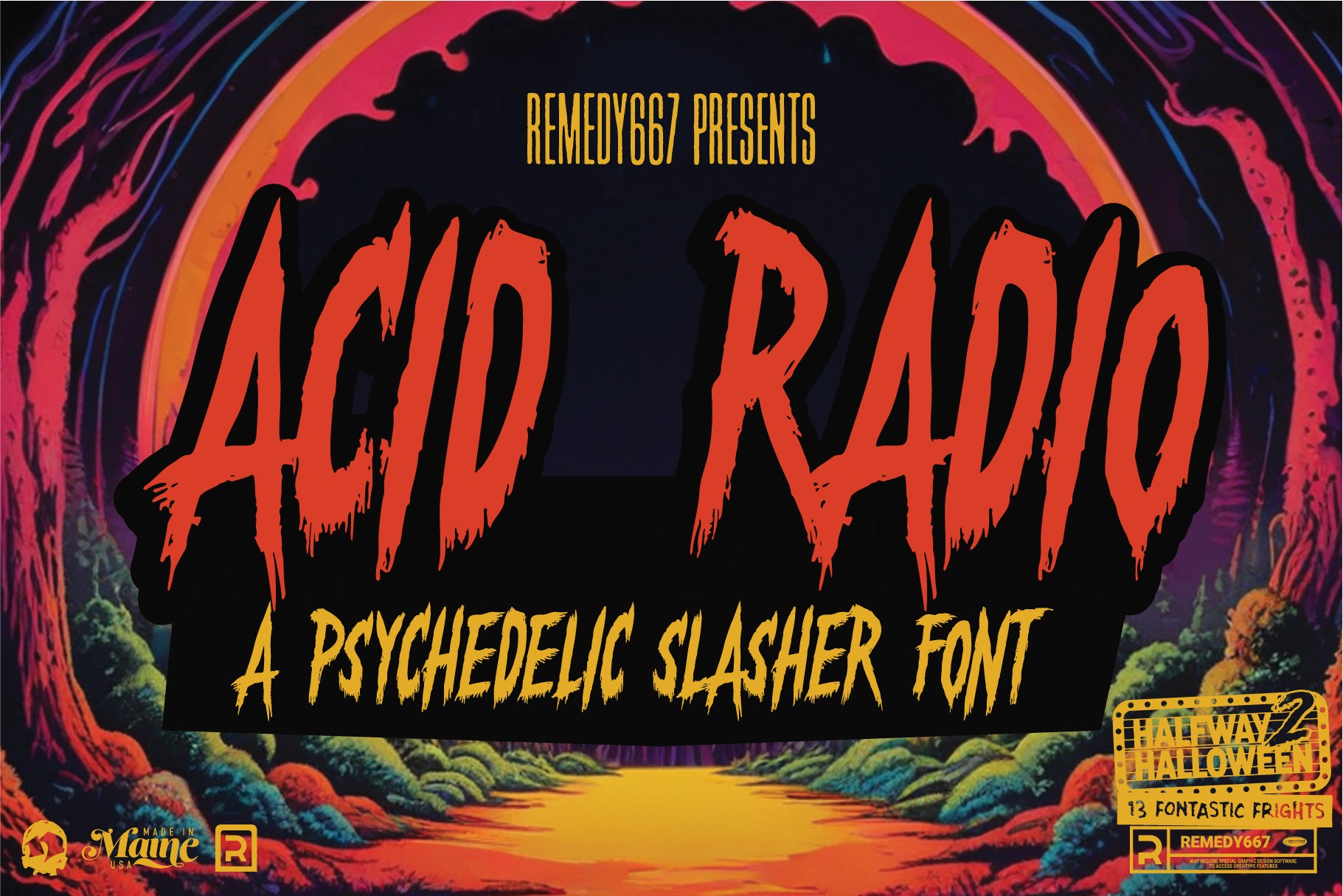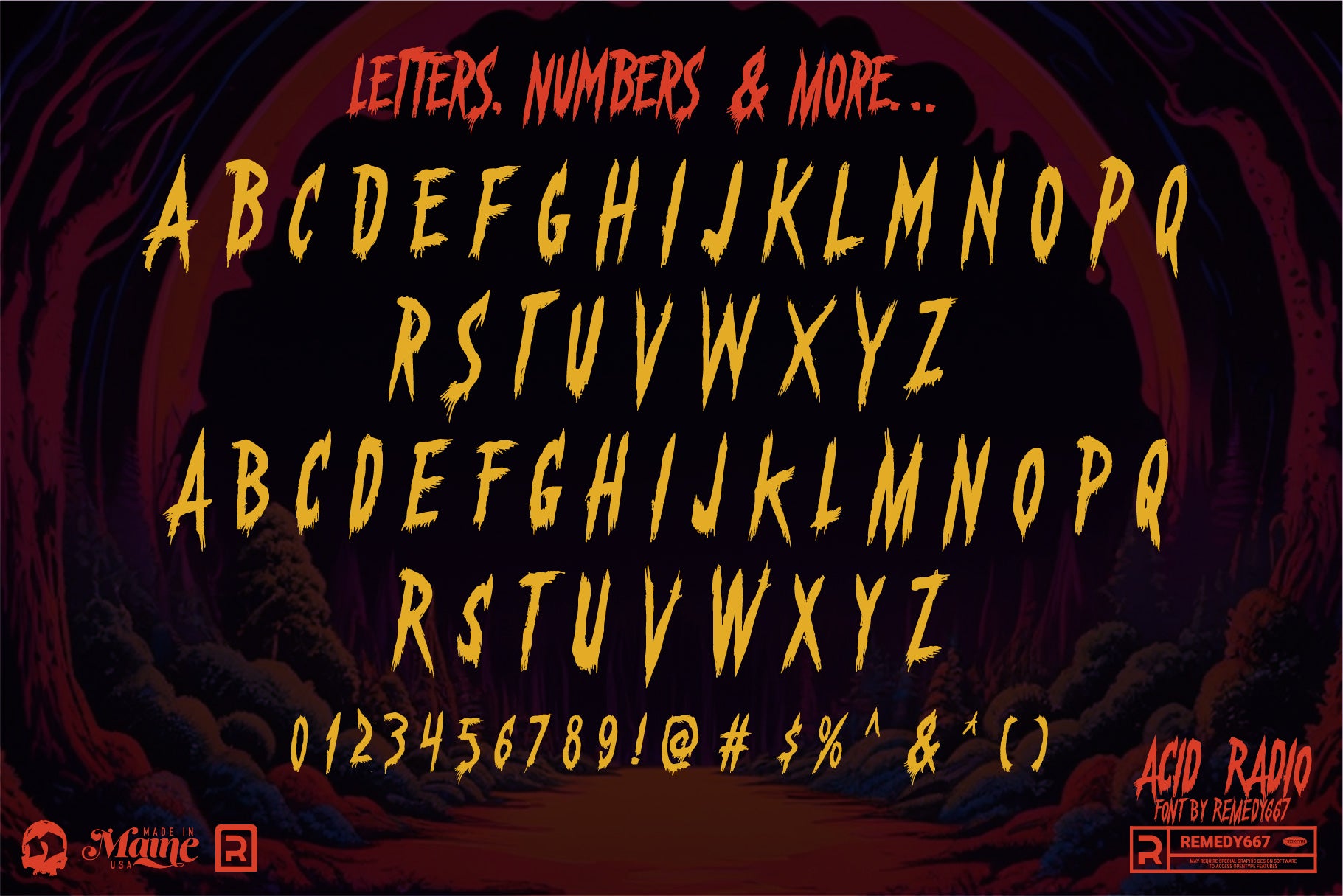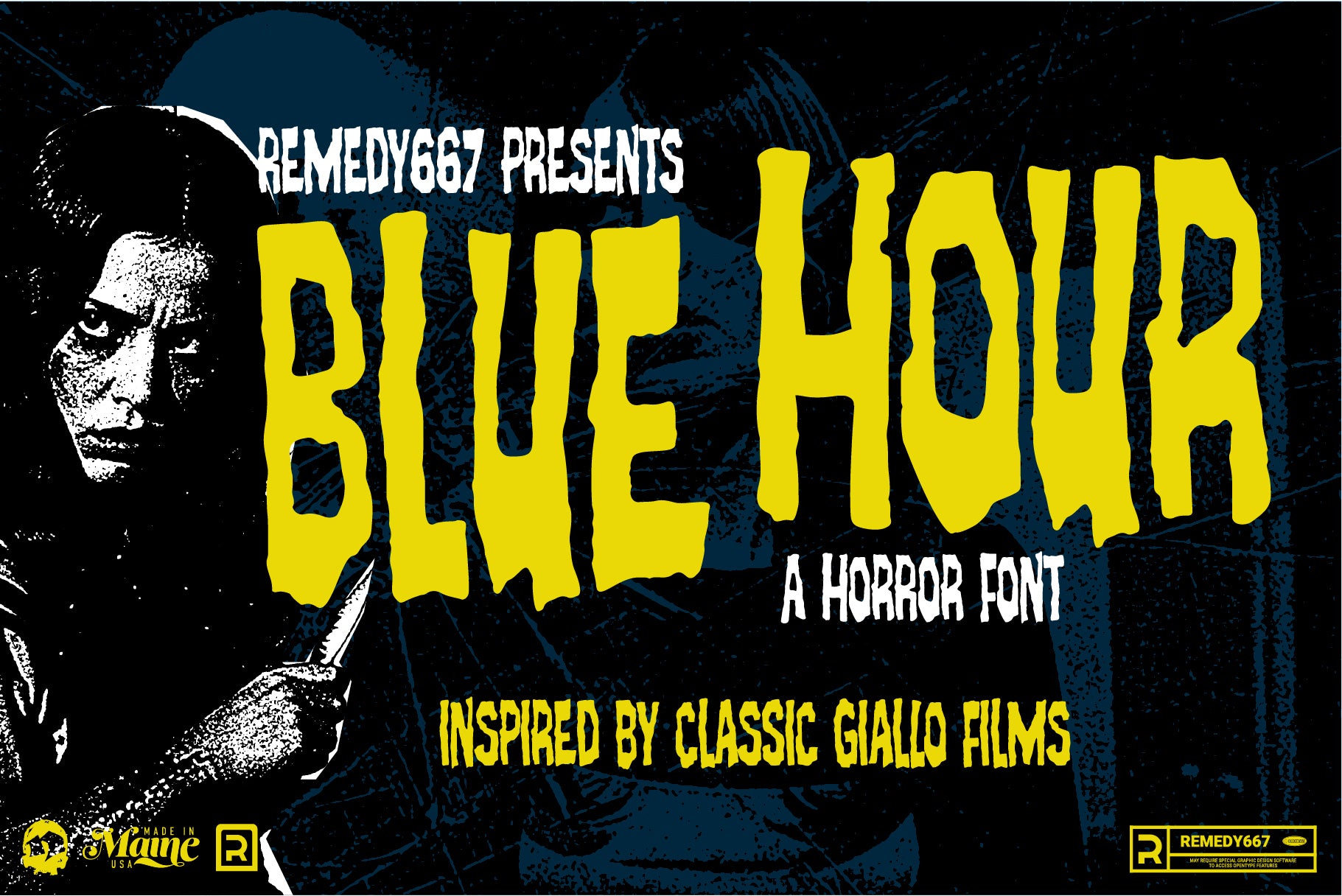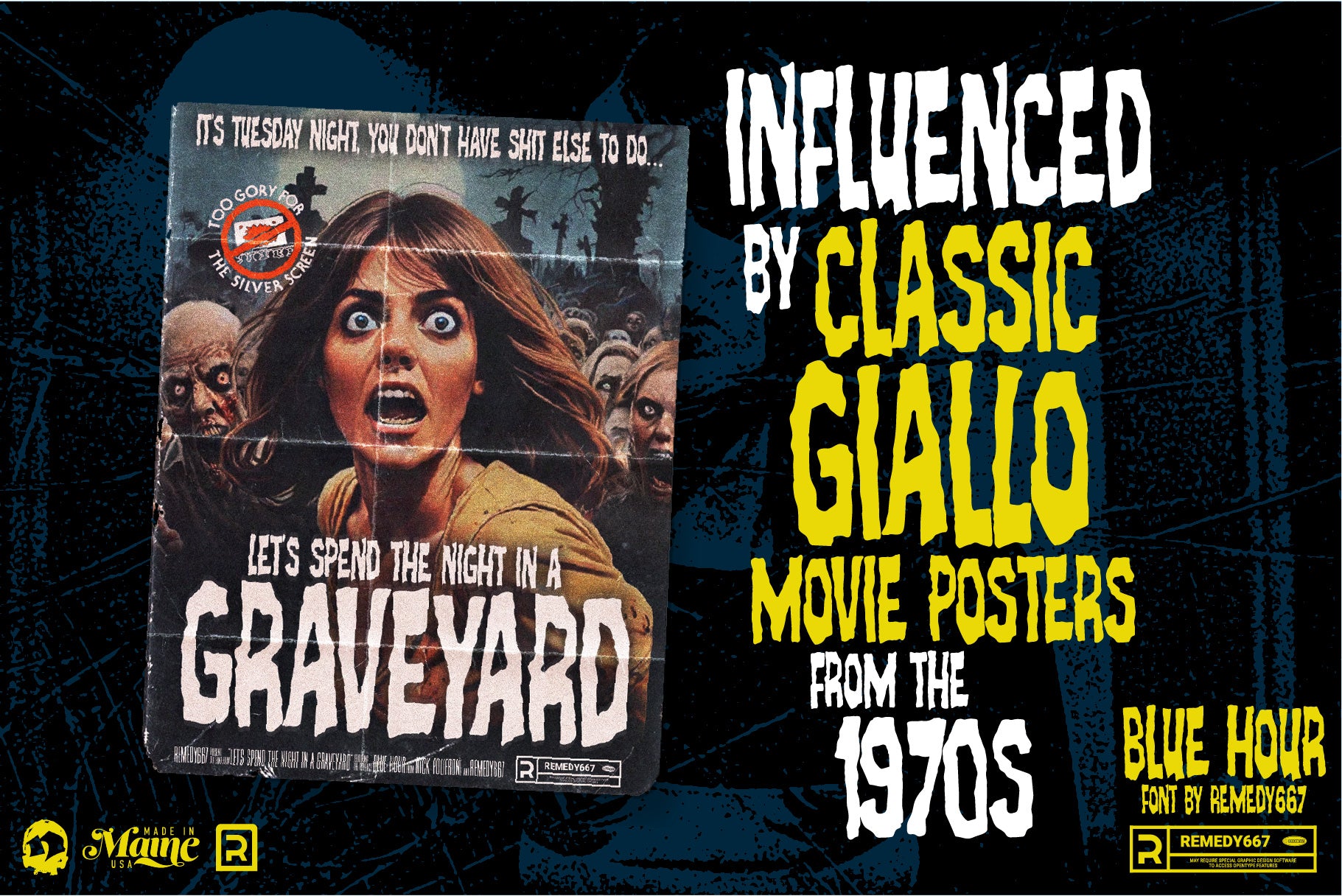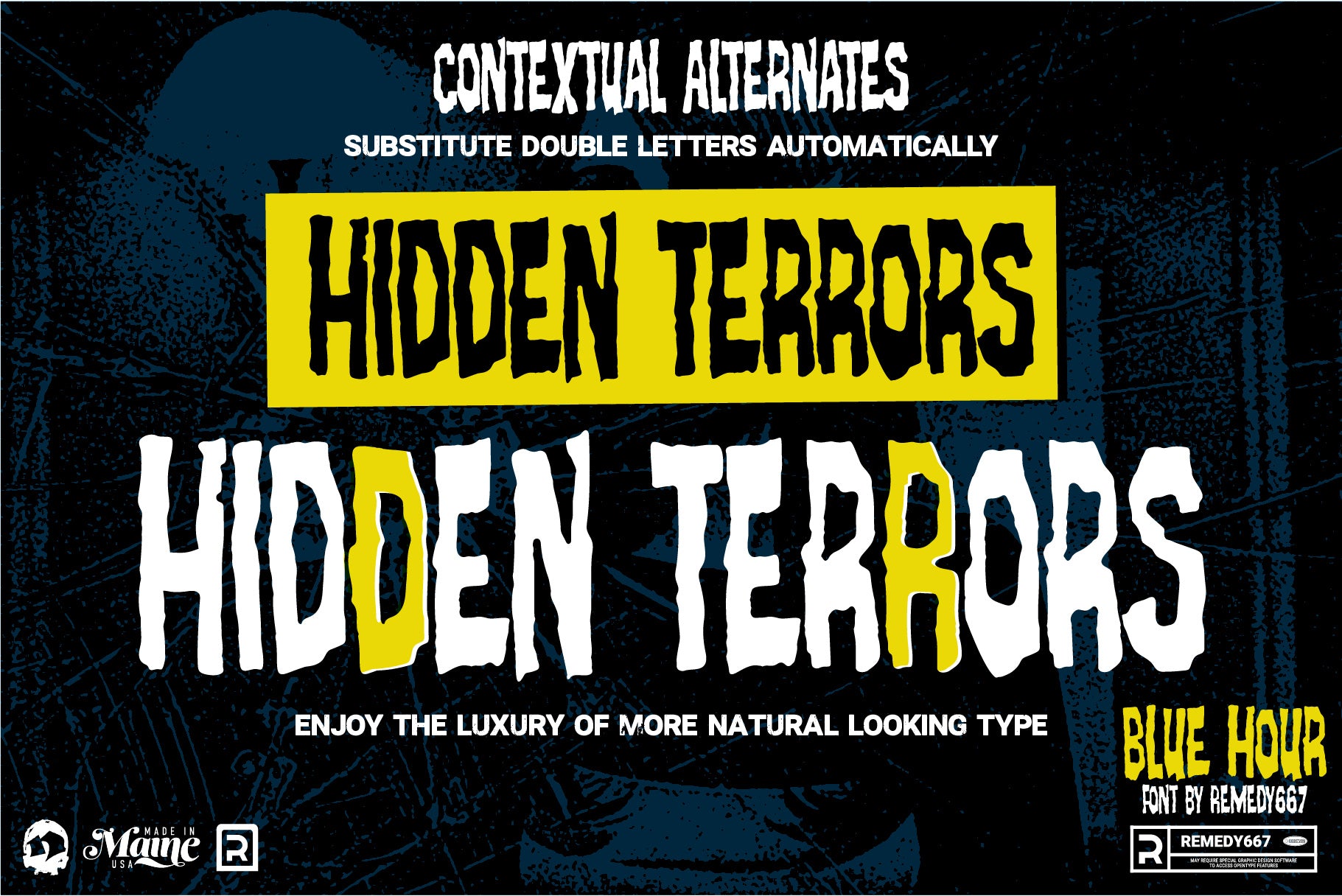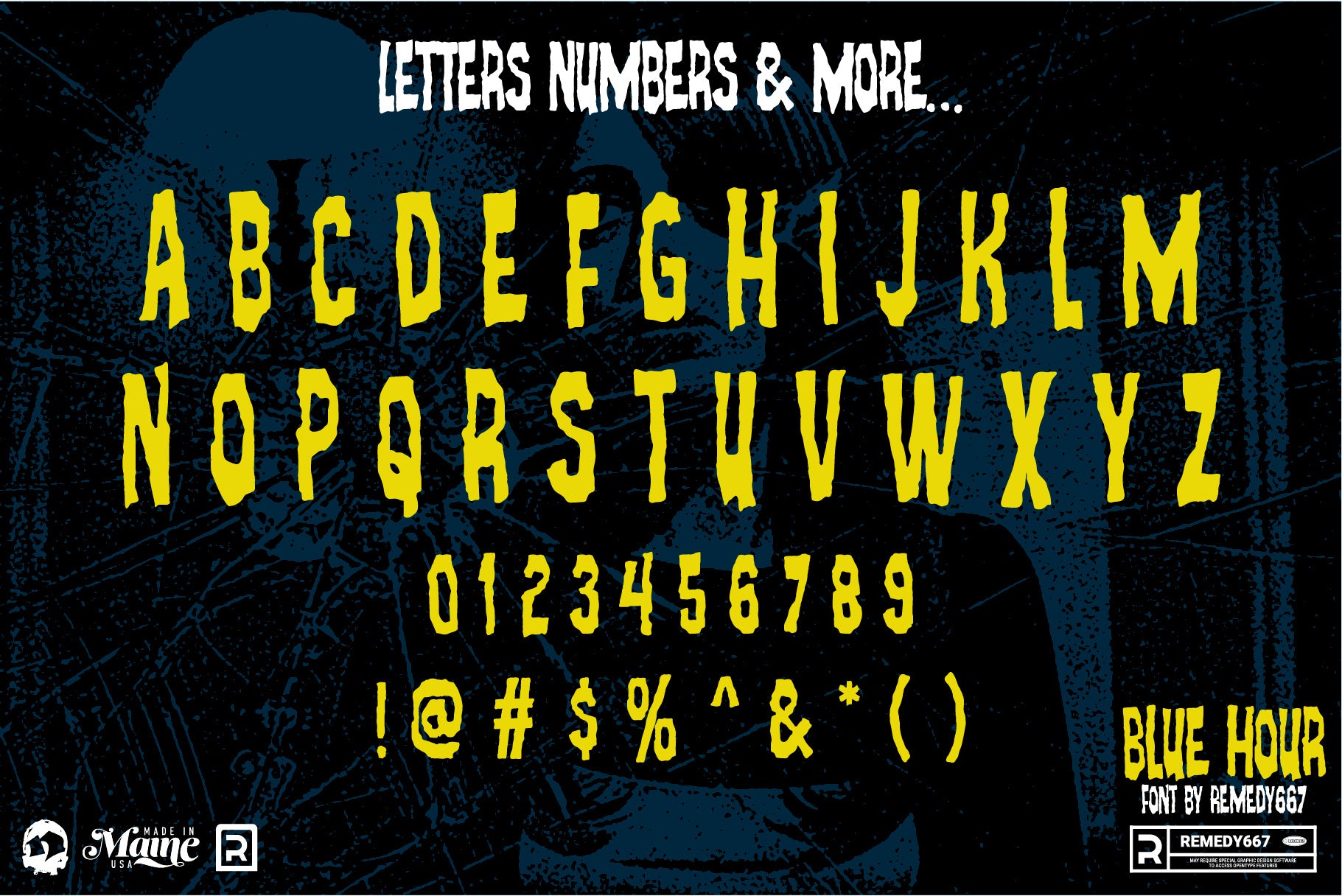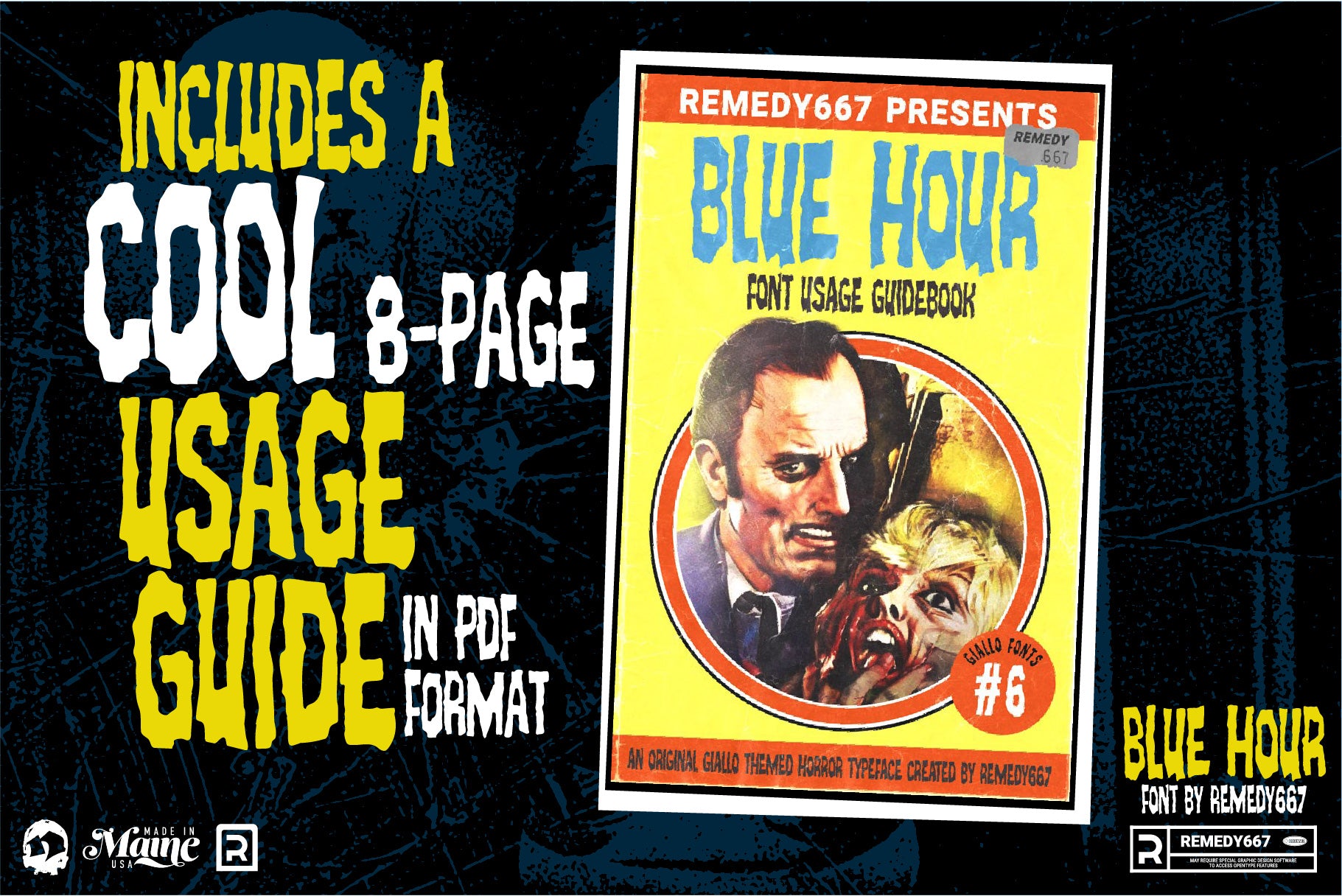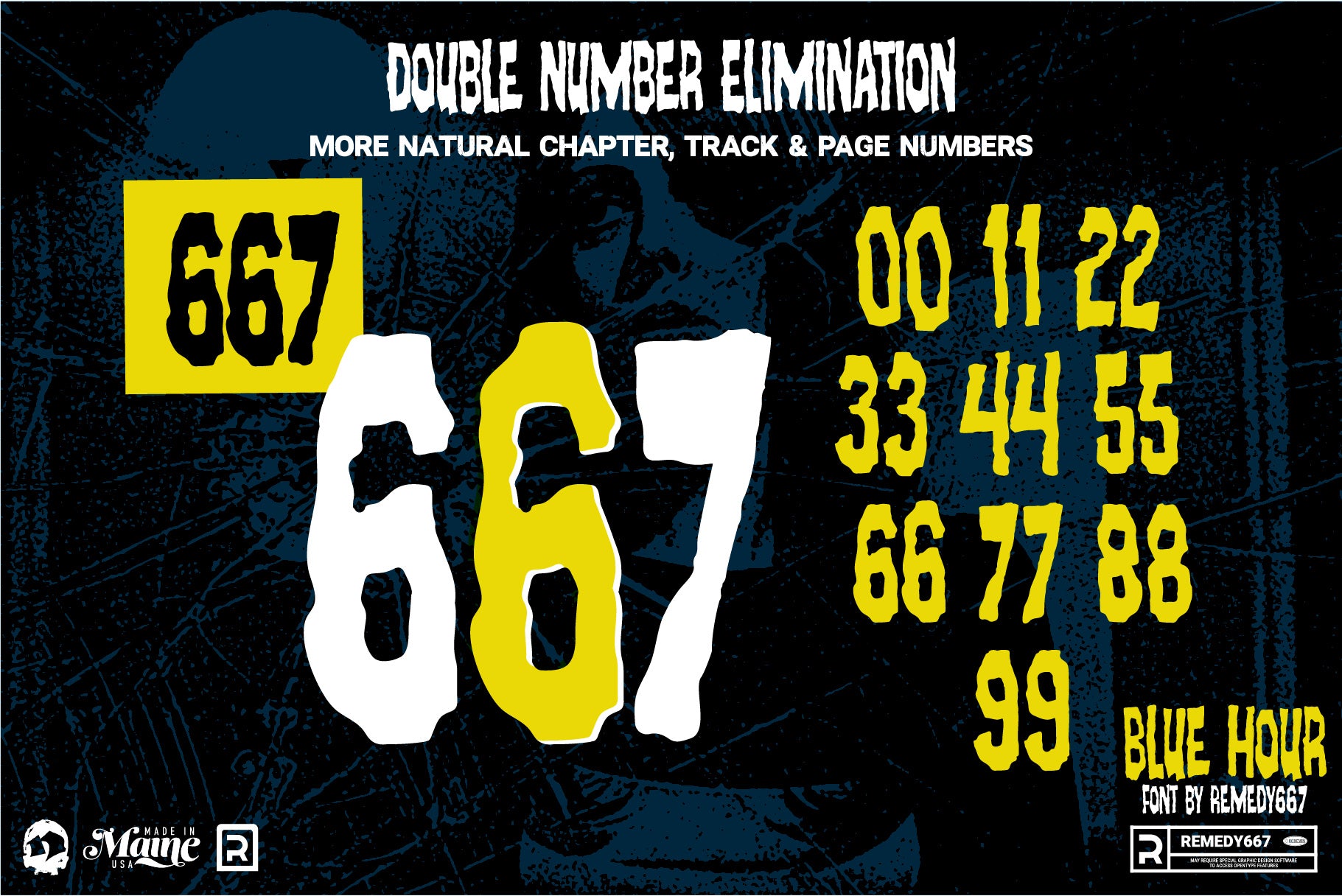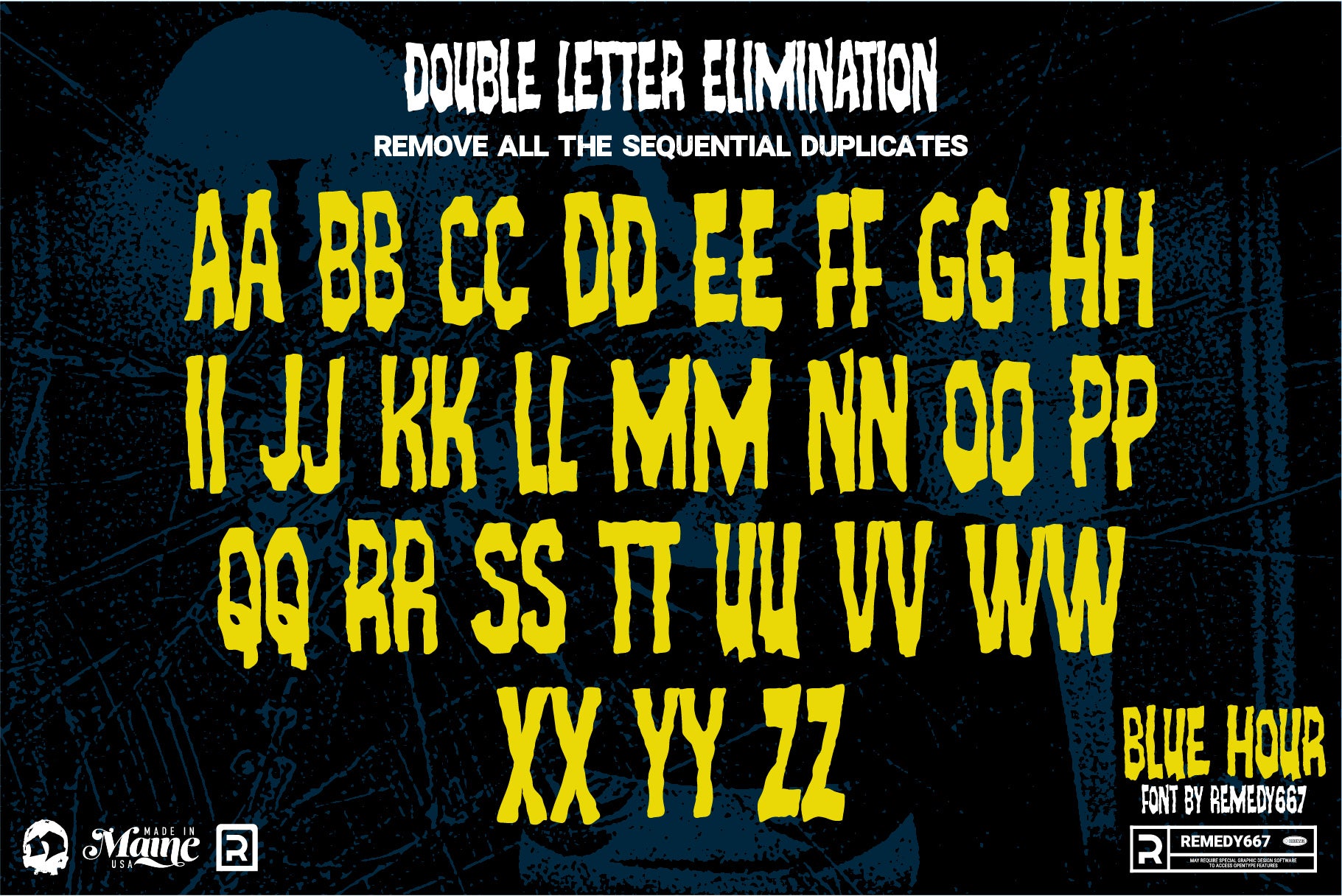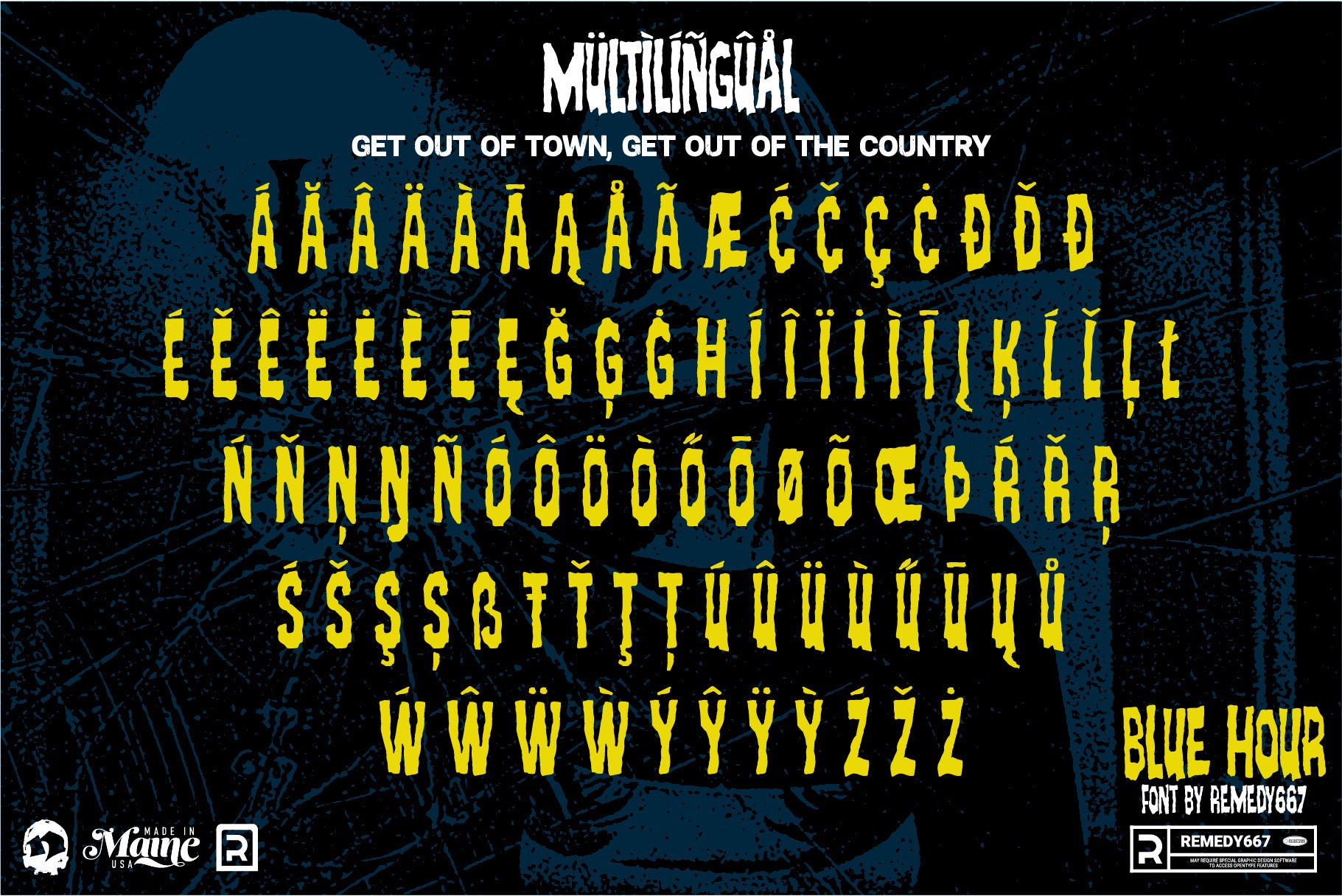
Route 666 Horror Font Bundle
Your One-Way Ticket to Typographic Terror
Welcome to the deadliest road in design... Route 666. This cursed collection of 13 horror fonts from REMEDY667 is your ultimate roadside attraction of slasher screams, spooky retro vibes, and B-movie grit. Each font is handcrafted with nostalgic terror in mind, inspired by everything from Italian giallo to '80s VHS box art.
Perfect for horror posters, Halloween branding, comic titles, slasher zines, and anything else that needs to bleed off the page.
Route 666 isn’t just a font bundle it’s a full-throttle drive into horror history. If your designs need guts, grime, and ghostly grit, this is your toolkit of terror.
13 Total Fonts across seven unique typefaces:
• Blue Hour (3 styles): Giallo-inspired terror based on Uncle Acid & The Deadbeats' Nell’ Ora Blu
• Coven Fresh (2 styles): Drippy and witchy with a slasher flick finish
• Ghosty Host (2 styles): Playful yet eerie—like Casper gone rogue
• Acid Radio (2 styles): A psychedelic display font with a VHS fever dream twist
• Curse of the Undead (1 style): Zombie-ridden and retrofied
• Hands of Death (1 style): Dust jacket horror made for grainy subtitles and chilling intros
• Cemetery Station v2 (2 styles): A bold, dripping redux of a cult classic
• Built for Fearless Display
Each font is designed to scream at full volume on posters, book covers, merch, and comics.
• Authentic Retro Horror Aesthetic
Inspired by everything from pulp paperback thrillers to haunted house flicks, these fonts hit that sweet spot between nostalgia and nightmare.
Fonts like Blue Hour, Ghosty Host, Hands of Death, and Acid Radio come with spooky, retro-themed usage guides to get you started fast.